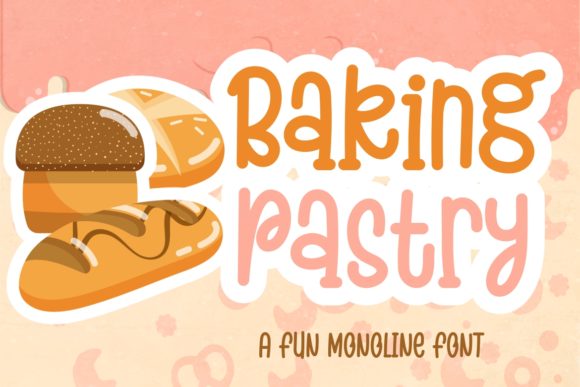
**Baking Pastry Font: The Secret Ingredient for Your Creative Journey**
Embark on a delightful adventure with Baking Pastry Font, a charming handwritten font that will add a touch of warmth and sweetness to your creative projects. Inspired by the artistry of bakers and pastry chefs, this font captures the essence of culinary delight, inviting you to explore a world of flavors and textures.
With its playful curves and whimsical charm, Baking Pastry Font is a versatile companion for a wide range of projects. Whether you're crafting elegant wedding invitations, designing heartwarming stationary art, or creating eye-catching social media posts, this font will elevate your creations with a touch of magic.
Imagine your words dancing across the page, infused with the aroma of freshly baked bread and the sweetness of sugar. Baking Pastry Font will transform your messages into delectable treats, leaving a lasting impression on your audience.
**A Feast for the Eyes: Indulge in the Beauty of Baking Pastry Font**
Step into a world where words become works of art with Baking Pastry Font. Its carefully crafted lines and authentic feel create a visual symphony that will captivate your senses. Each letter is a masterpiece, meticulously designed to evoke a sense of joy and wonder.
With Baking Pastry Font, you'll have the power to create designs that are as unique and delectable as your favorite dessert. Let your imagination run wild as you explore the endless possibilities of this charming font.
**Craft Your Culinary Masterpieces with Baking Pastry Font**
Whether you're a seasoned designer or just starting your creative journey, Baking Pastry Font is the perfect tool to bring your culinary-inspired visions to life. Its user-friendly interface and intuitive design make it easy for anyone to create stunning designs that will leave a lasting impression.